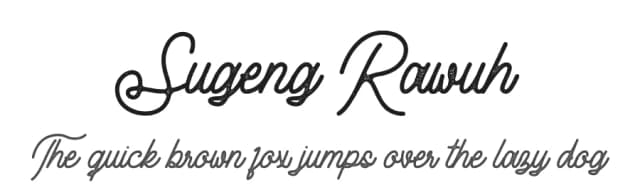
About Barthony Font
Barthony Specifications
| Font Family | Barthony |
| Full Name | Barthony Regular |
| Glyph Count | 79 glyphs |
| PostScript Name | Barthony-Regular |
| Designer | Rian Rahardi |
Barthony ships with 2 OpenType features you can switch on in apps that support them (Illustrator, InDesign, Affinity, Figma, CSS font-feature-settings).
Barthony supports 91 languages.
Barthony Font is a script font that shines as a display or heading face. Pair it with a clean sans-serif or serif font for body text β the contrast creates a clear hierarchy while the two styles stay balanced and easy to read.
Barthony Font